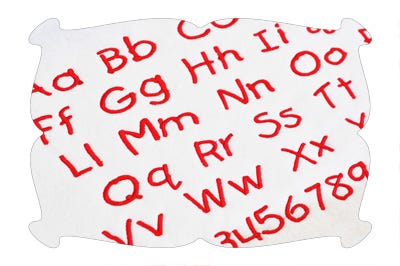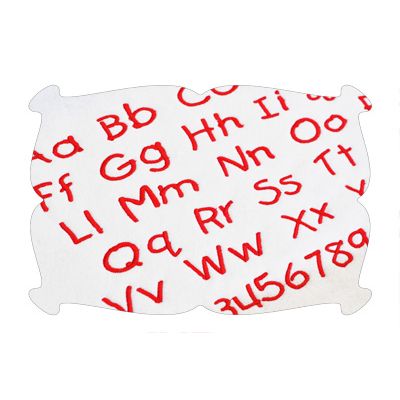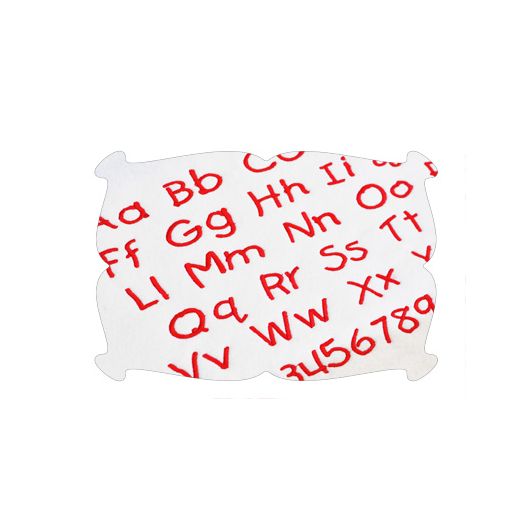
Childs Handwriting Satin Stitch Embroidery Font
Child's Handwriting Embroidery Font
The perfect embroidery font for all of your Back To School and kid themed projects.
One of our favorites!
We've used the font used on a shirt for Abbie. I love mixing up the thread colors to match my fabric.
Capital letters A thru Z, lower case letters a thru z, numbers 0-9, punctuation.